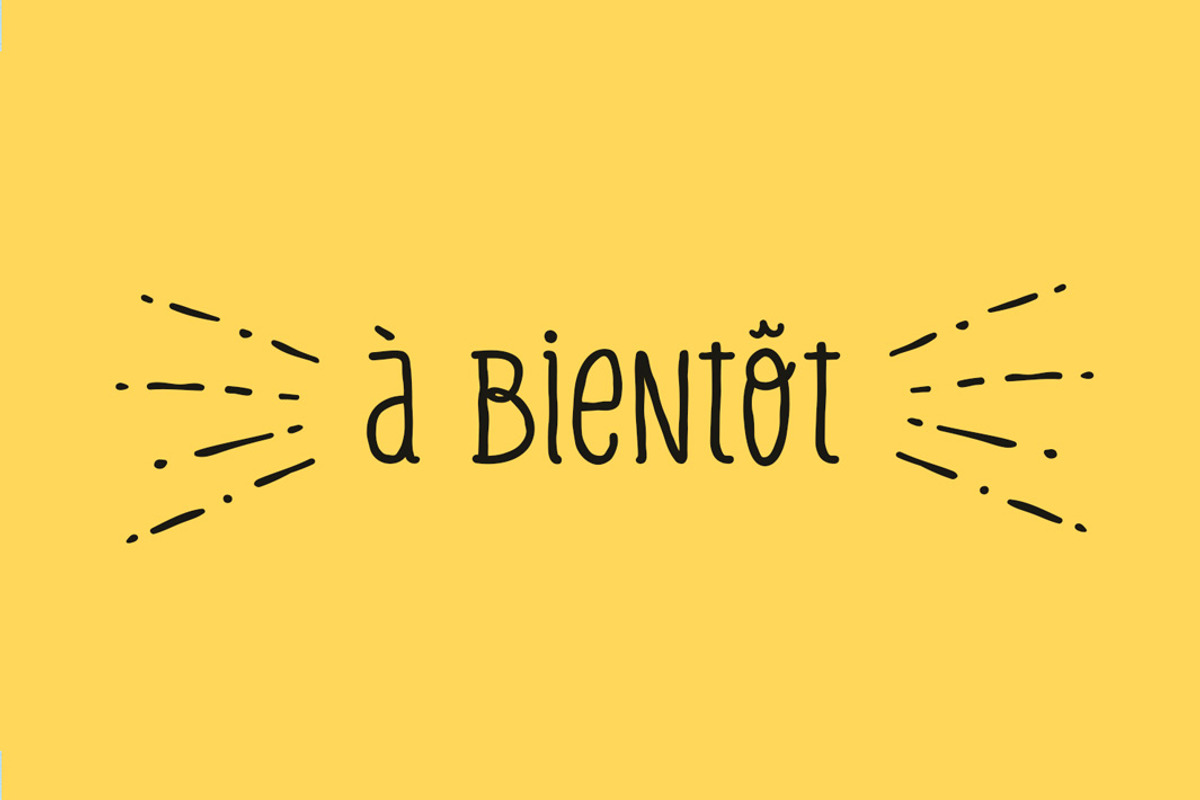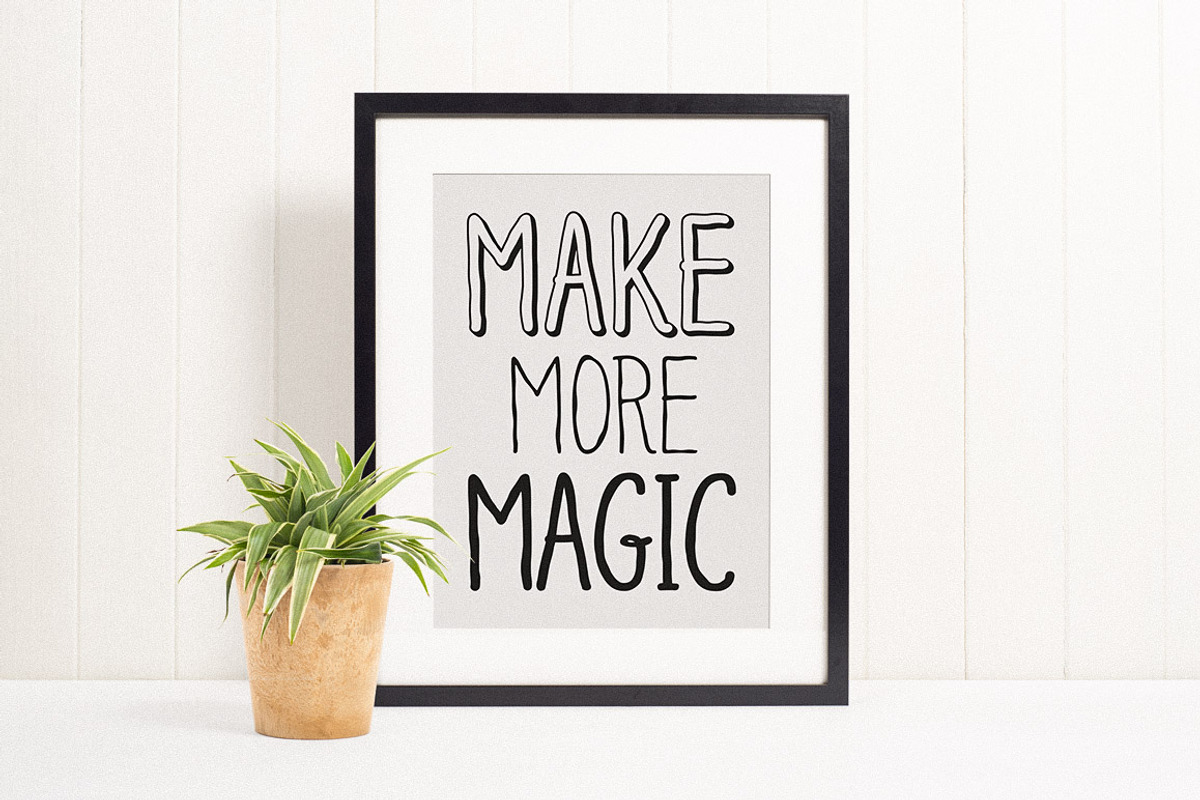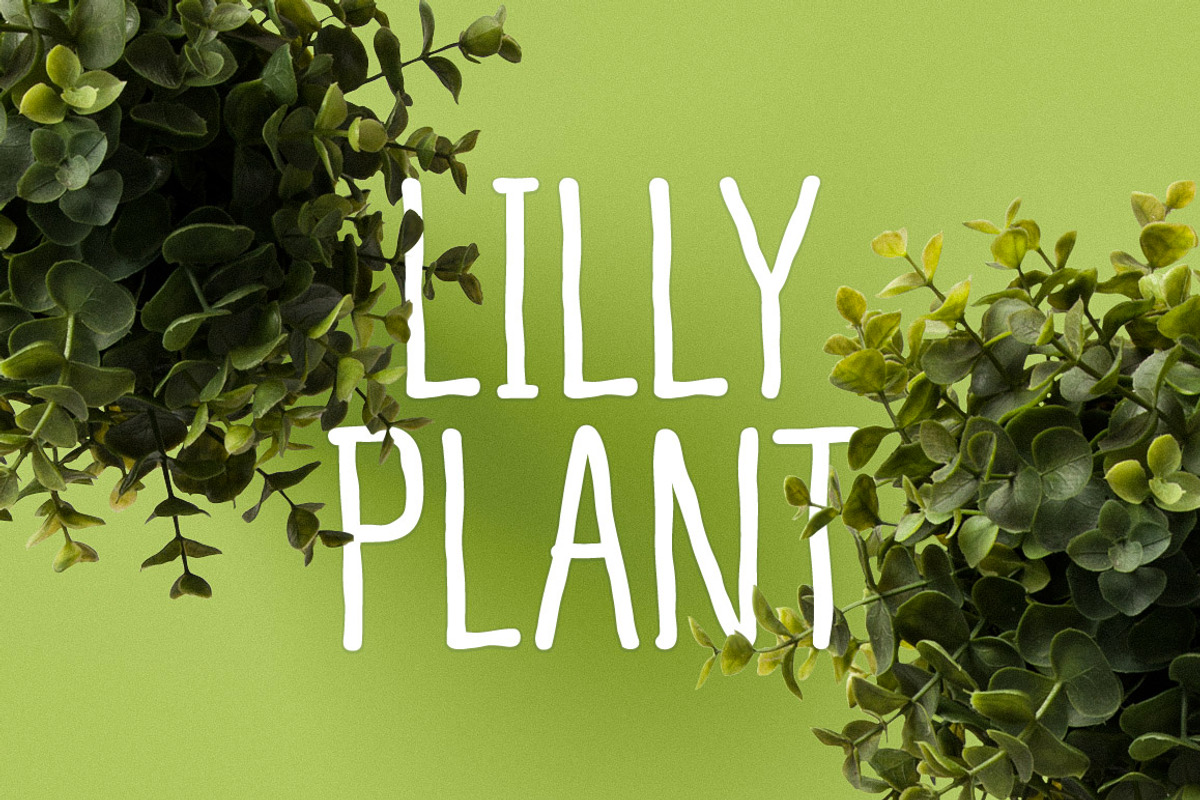
Pineapple Type Family
Pineapple is a display typeface with handcraft features, designed by hand and rendered to bring a handmade aesthetic to Design projects. The idea started with sketches of a few letters and soon became a whole alphabet. The font follows a unique contrast in its shape with suttle variations in thickness, resulting in a look similar to a pencil trace, perfect for design projects that require that touch of rustic, craft and cool!
Includes 3 weights: